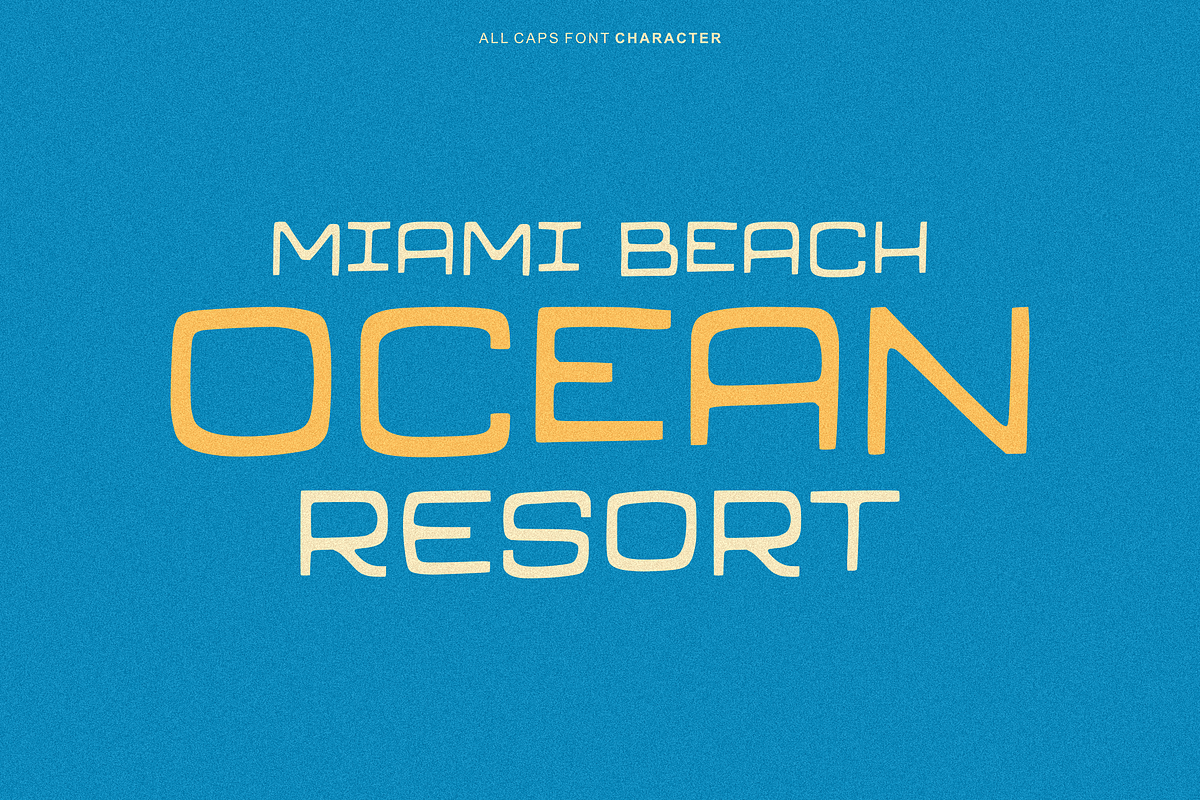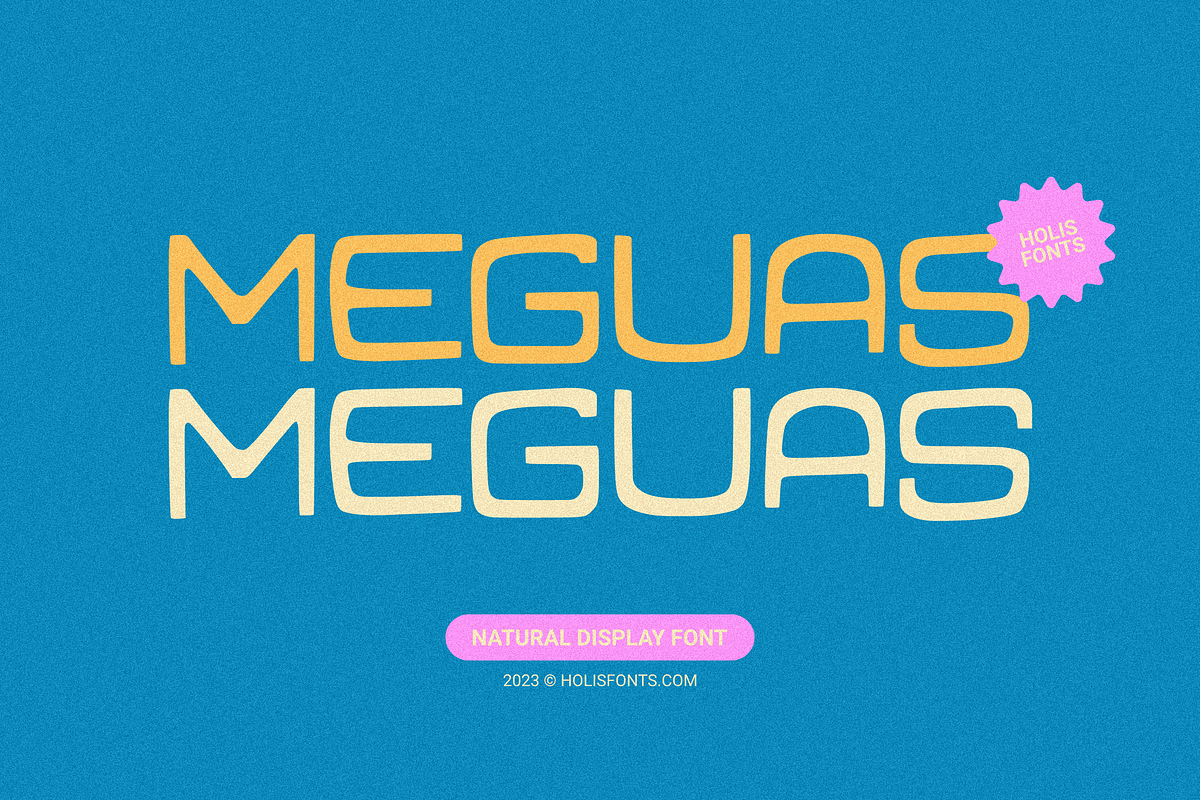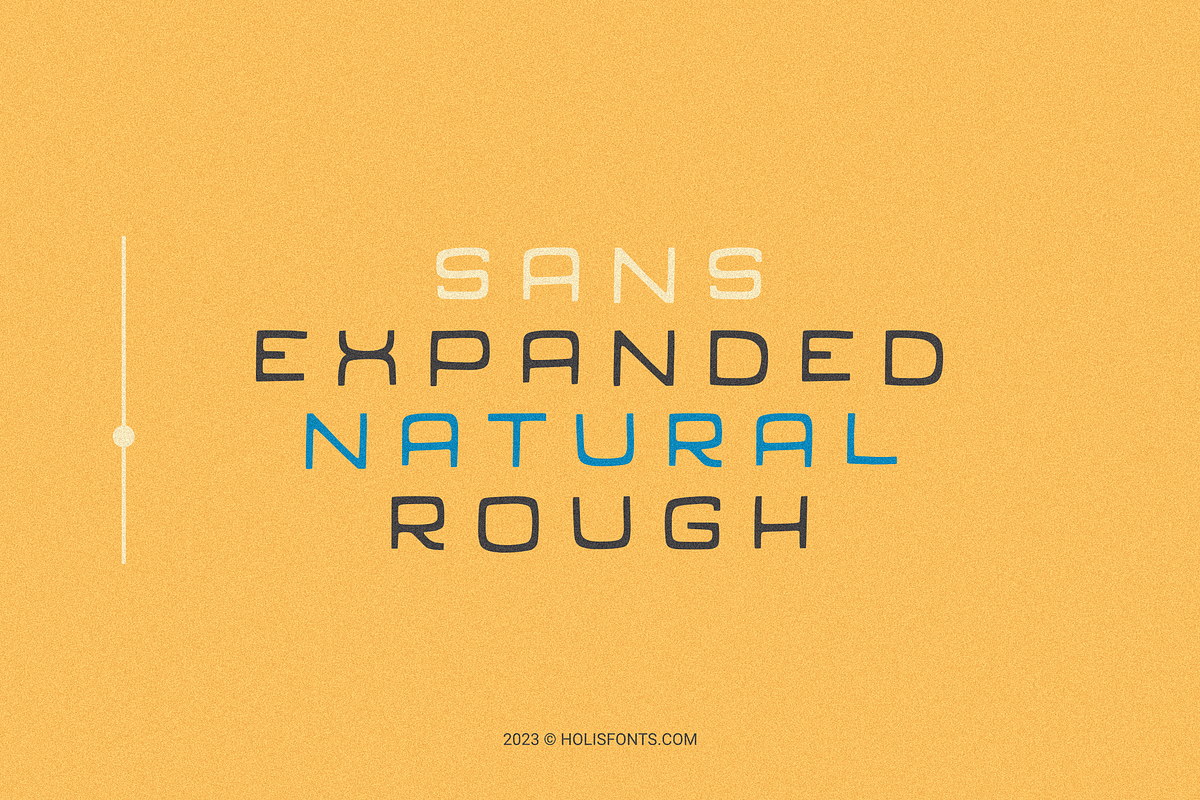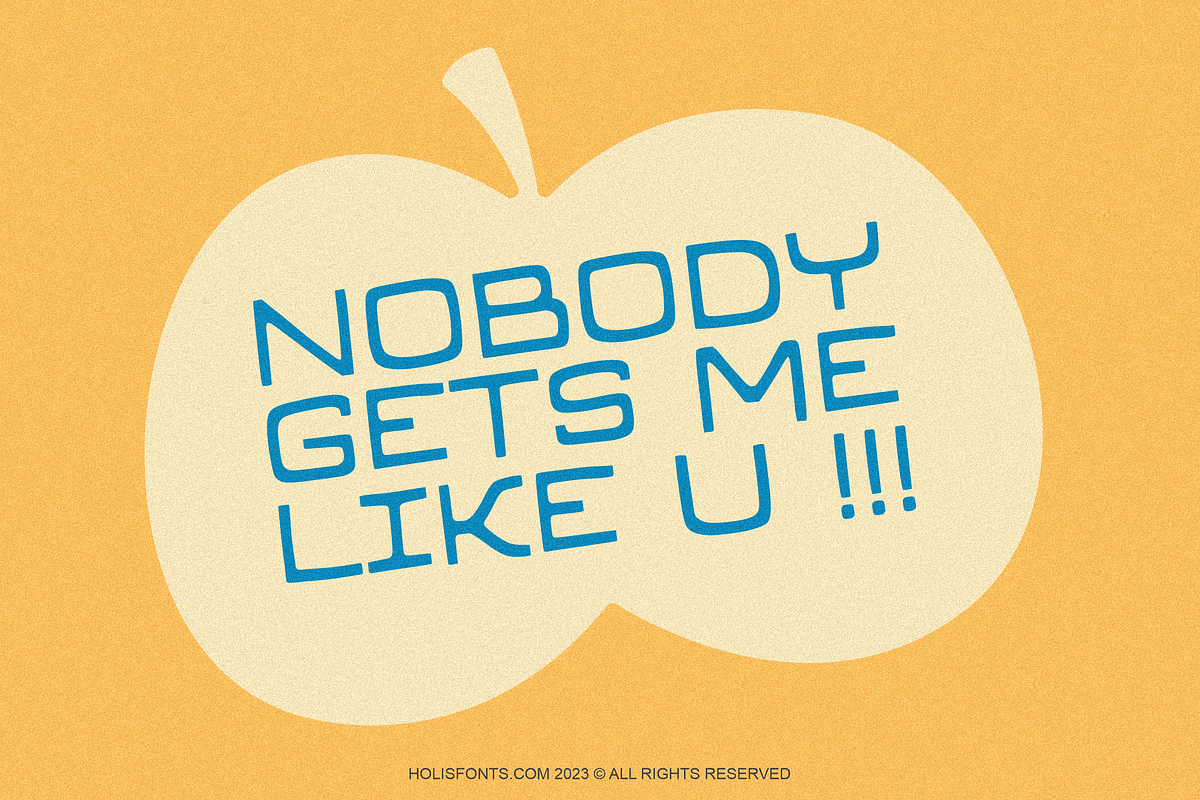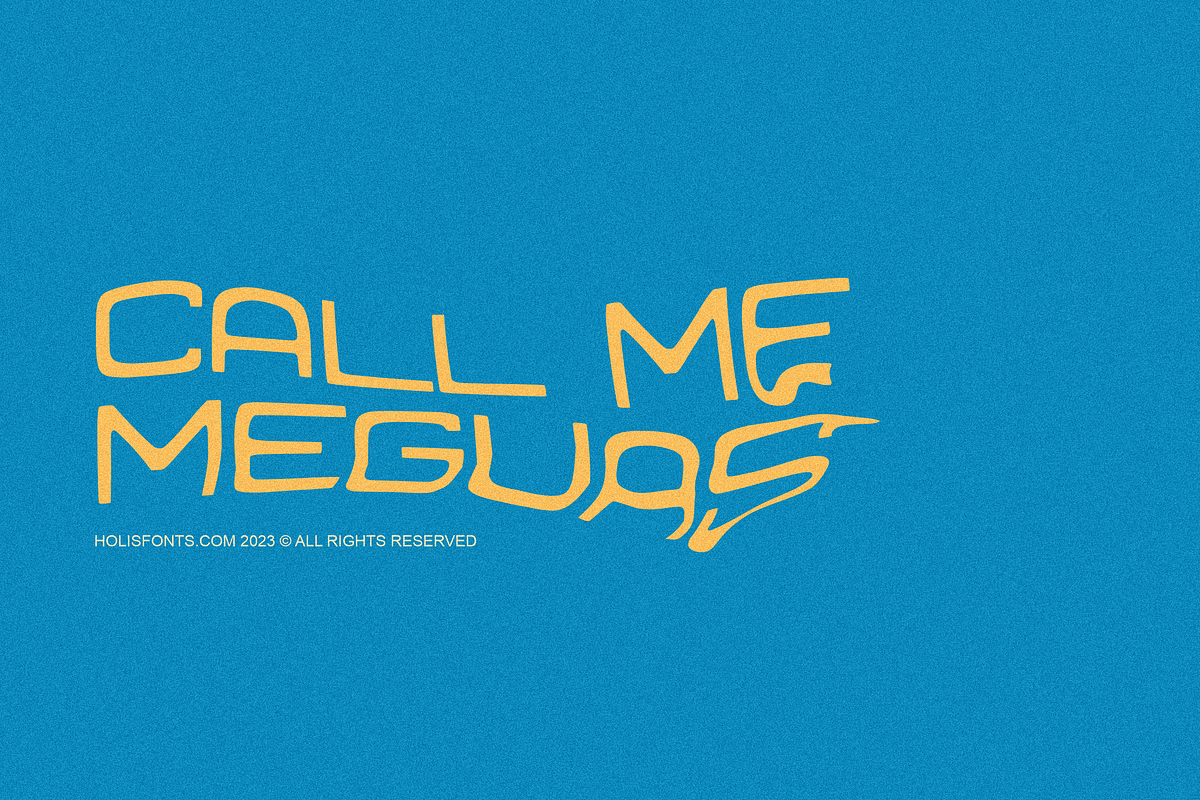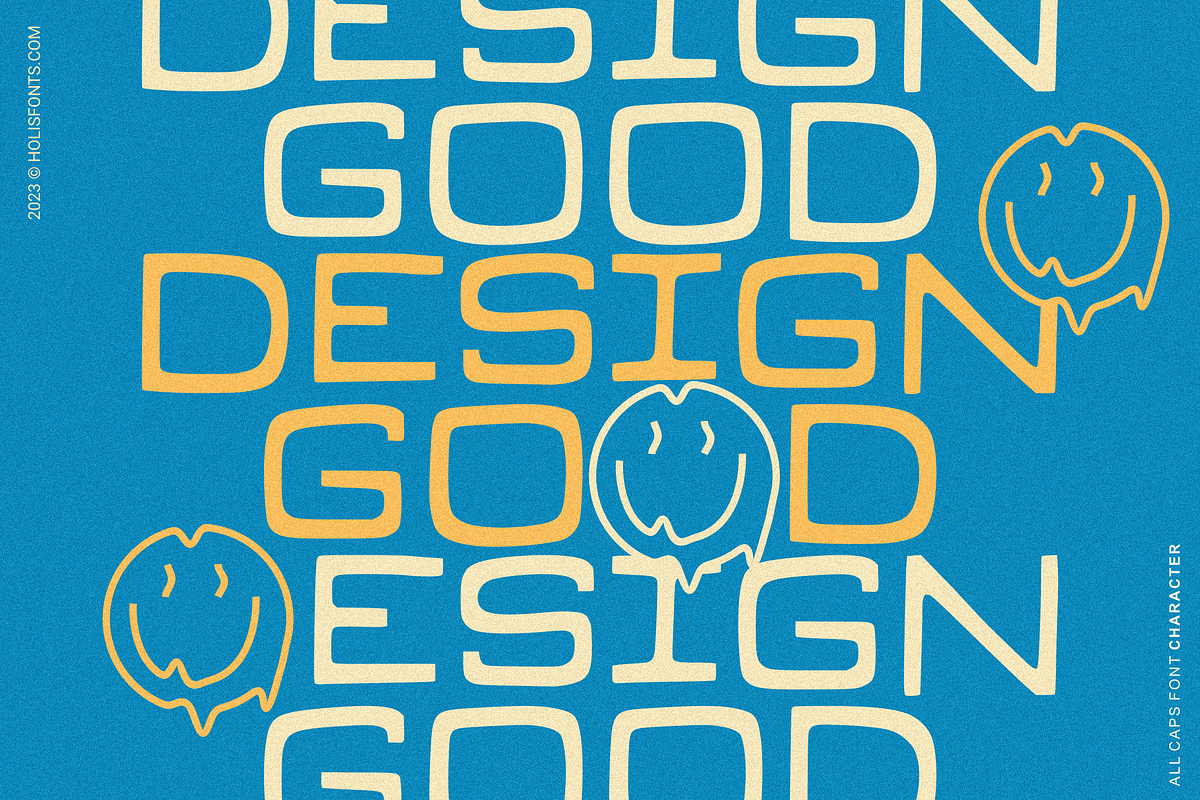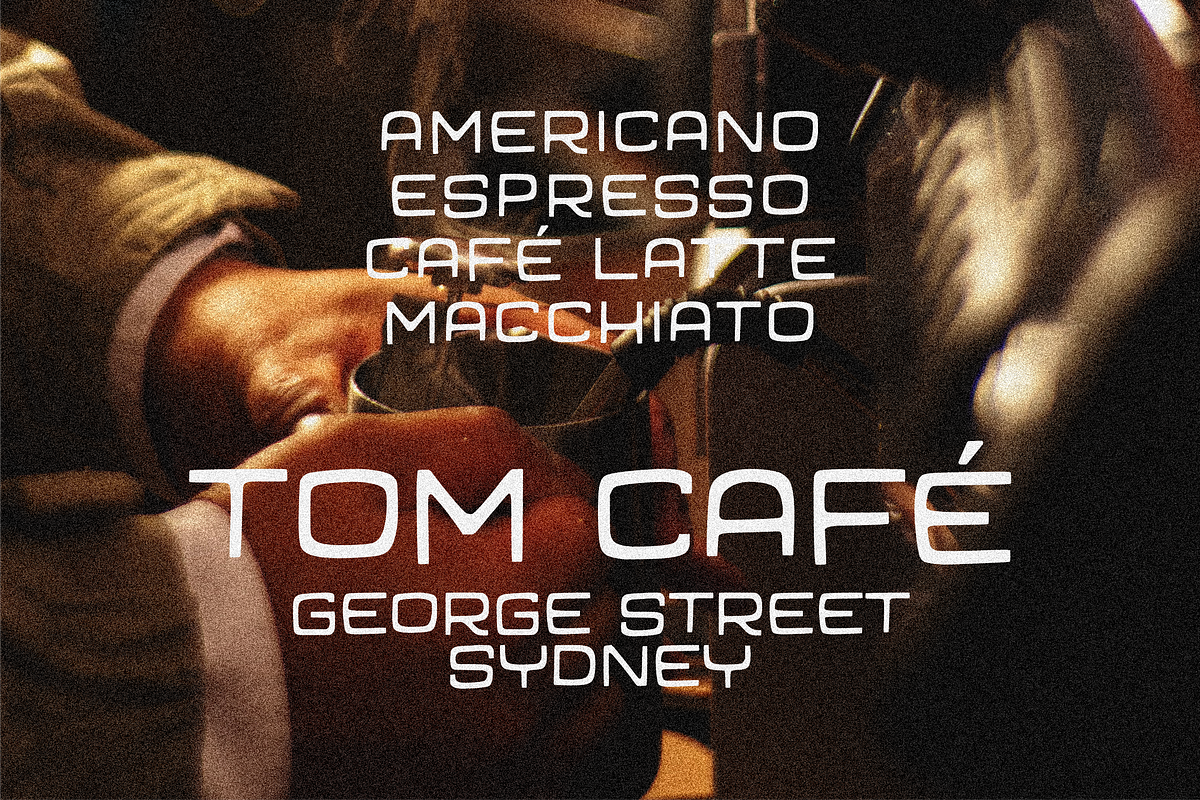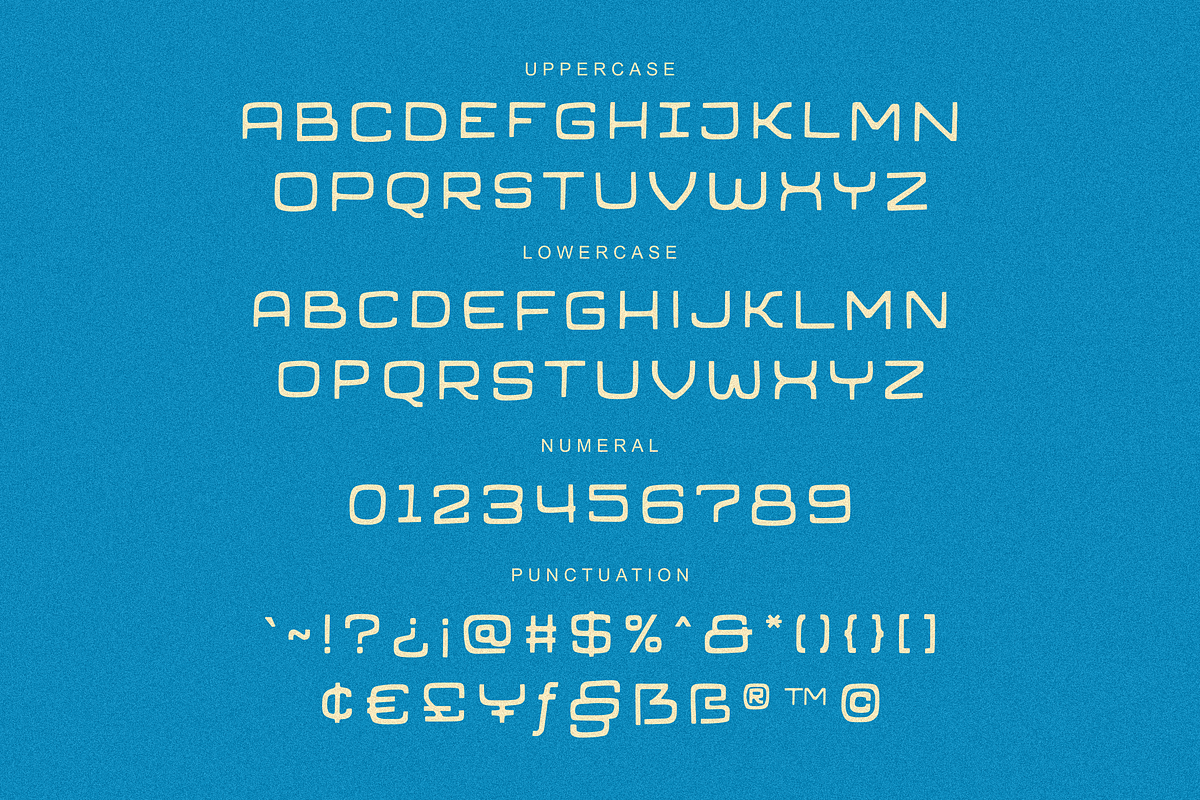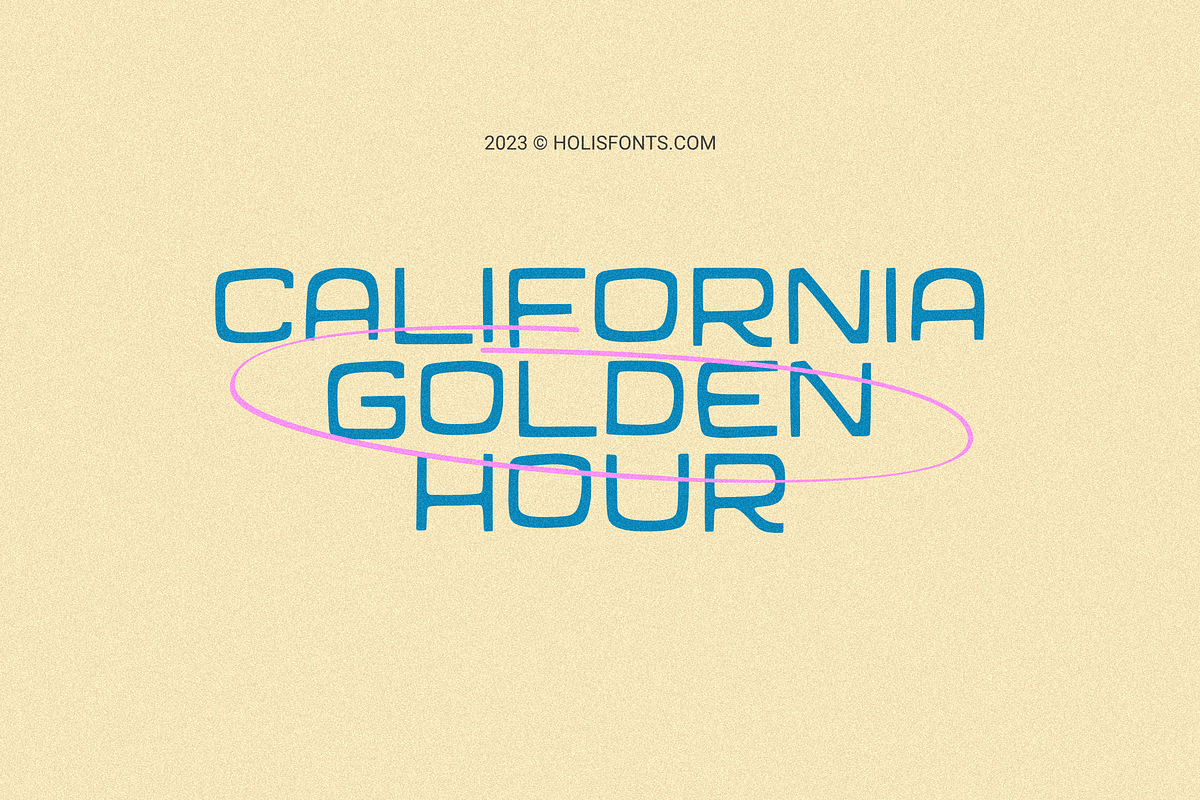
Meguas
Meguas is designed by means of solid stiff paint but left with a rough impression to get a natural and slightly messy impression.
The font has a bit of a rough vibe that is stretched and with all caps characters.